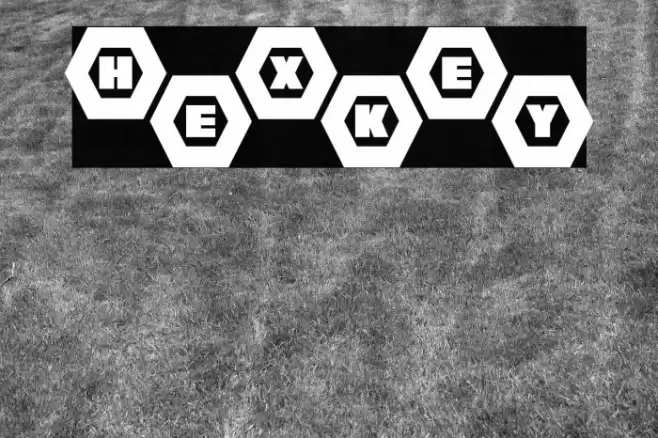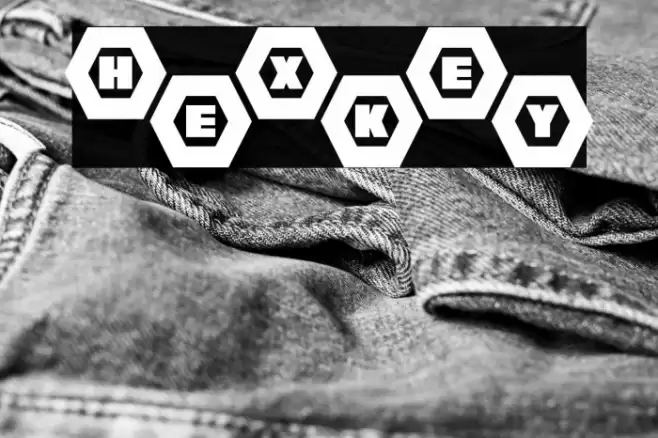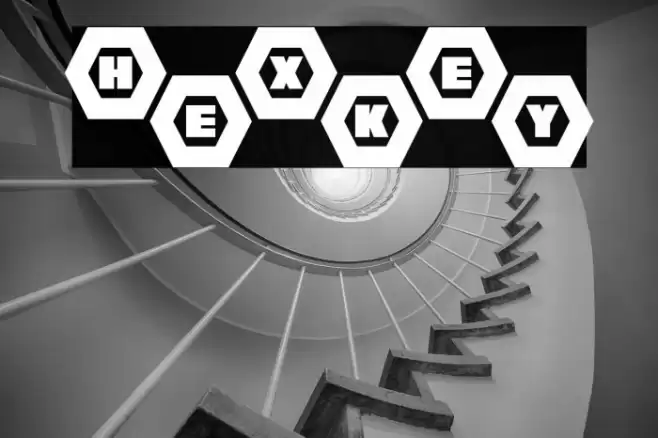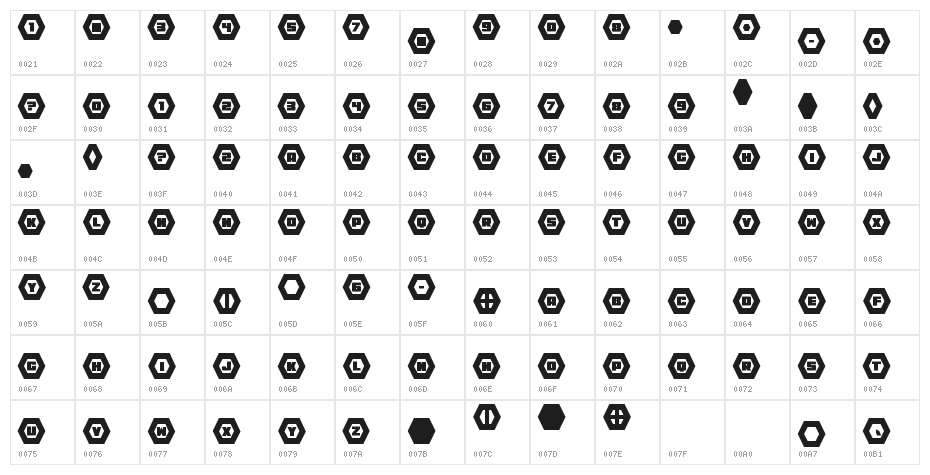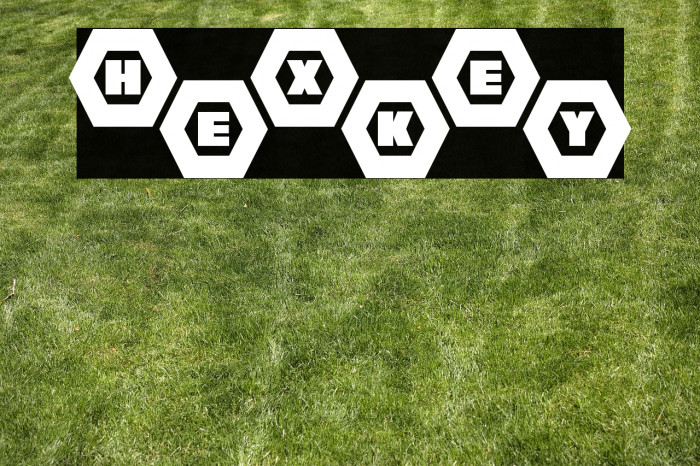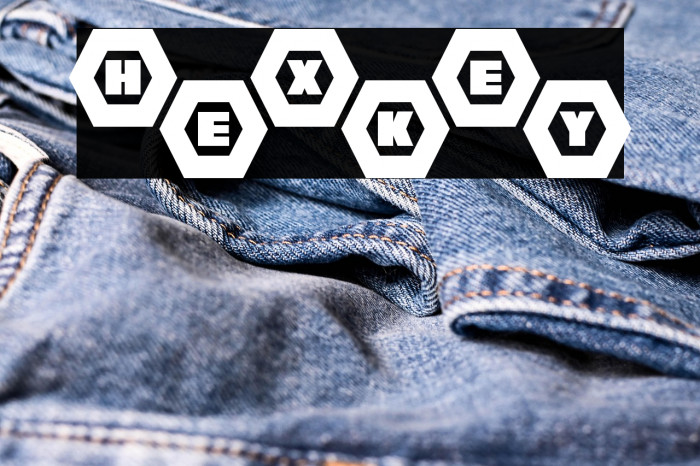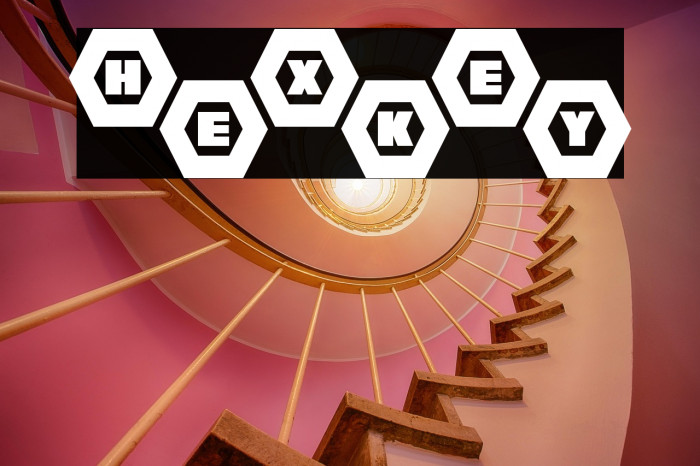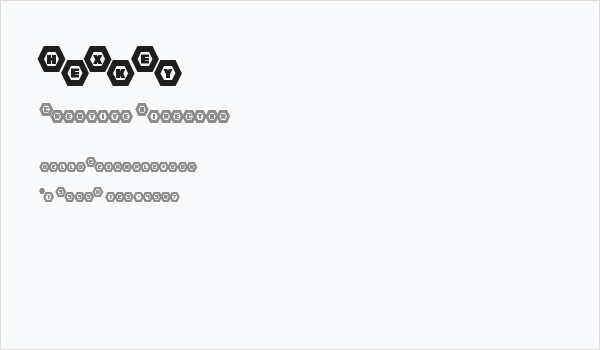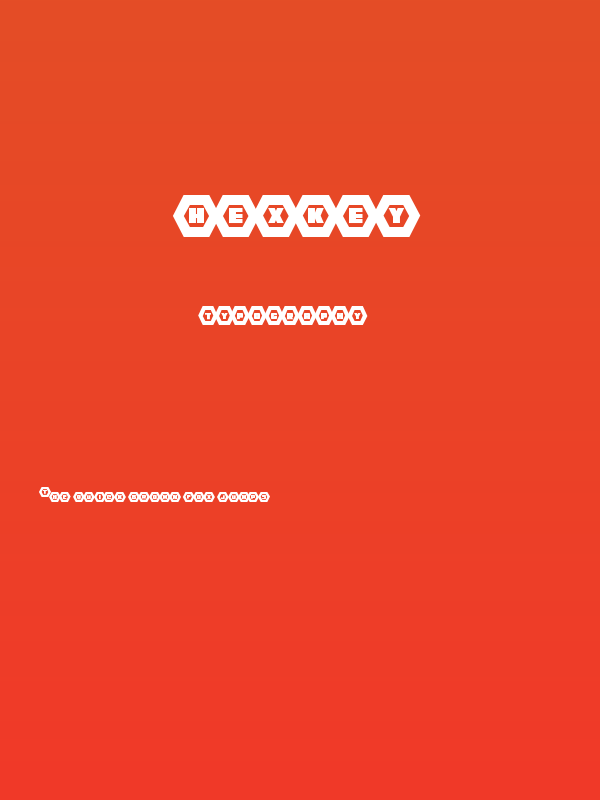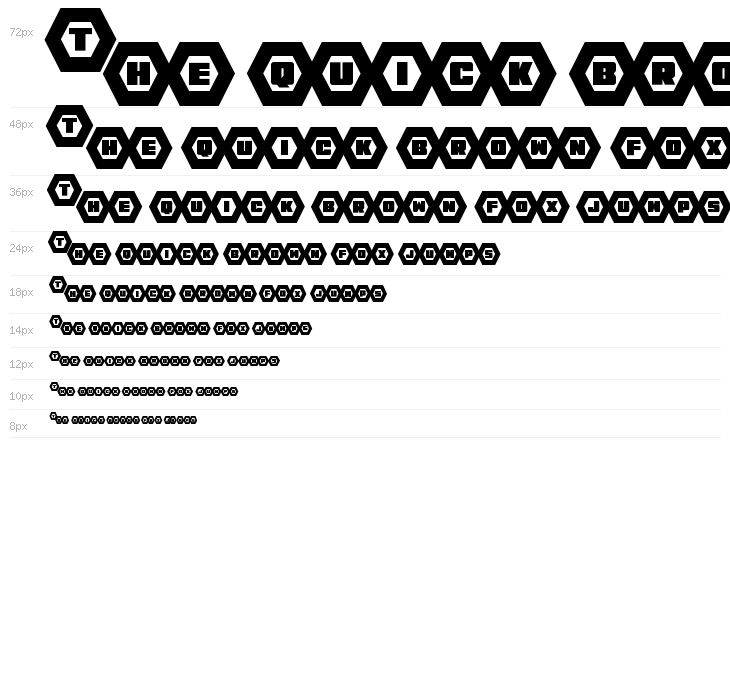
HeXkEy Font
HeXkEy Description
This font features a unique design where each character is encapsulated within a hexagonal shape, creating a bold and geometric aesthetic. The characters themselves are sans-serif, with a modern and clean appearance. The hexagonal borders are thick and provide a strong visual impact, making the characters stand out prominently. This design is consistent across uppercase and lowercase letters, as well as numbers and special characters, ensuring uniformity. The font's distinct style is both eye-catching and versatile, suitable for a variety of creative applications.
A bold, geometric font with characters enclosed in hexagonal shapes from Uncategorized fonts.
- Proposed Projects: Ideal for futuristic designs, tech branding, video game interfaces, and sci-fi themed projects.